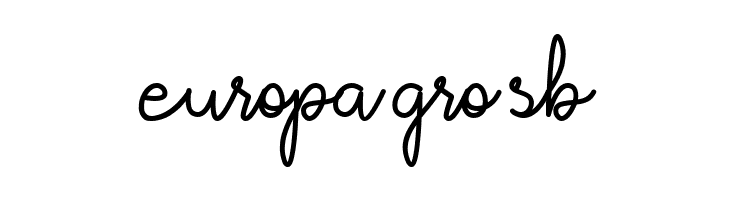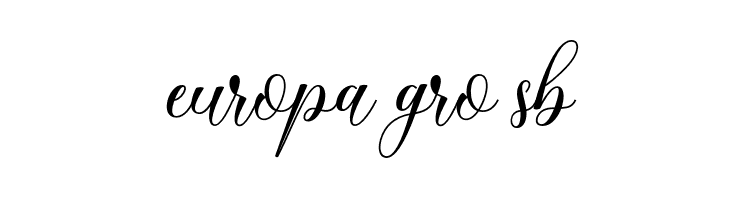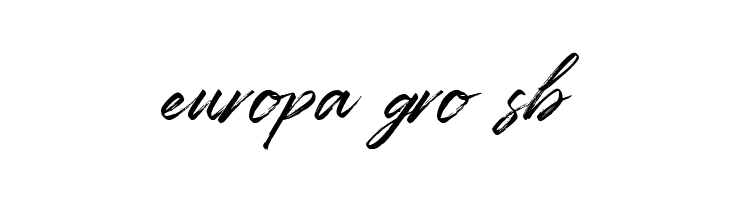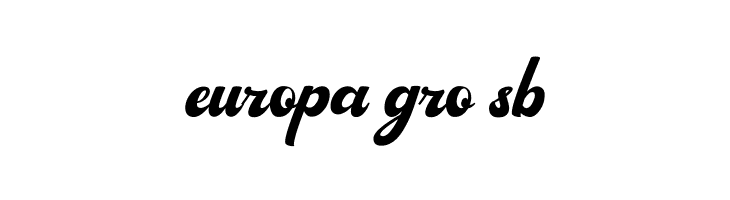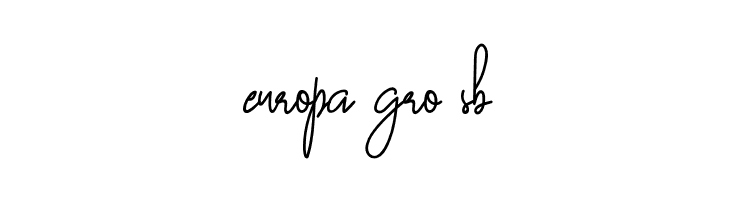
A playful and elegant handwritten script font with smooth, flowing curves.
A flowing, elegant handwritten font with elongated, smooth strokes.
A bold, italicized font with angular lines and a modern, dynamic slant.
An elegant, flowing script font with graceful curves and decorative flourishes.
An elegant script font with flowing, interconnected letters and refined flourishes.
An elegant, flowing script font with ornate uppercase letters and smooth cursive lines.
A graceful, calligraphic script font with elegant, flowing letters.
A bold, expressive script font with a dynamic, handwritten style.
A bold, flowing script font with elegant, connected characters.
A fluid and elegant handwritten font with dynamic strokes.